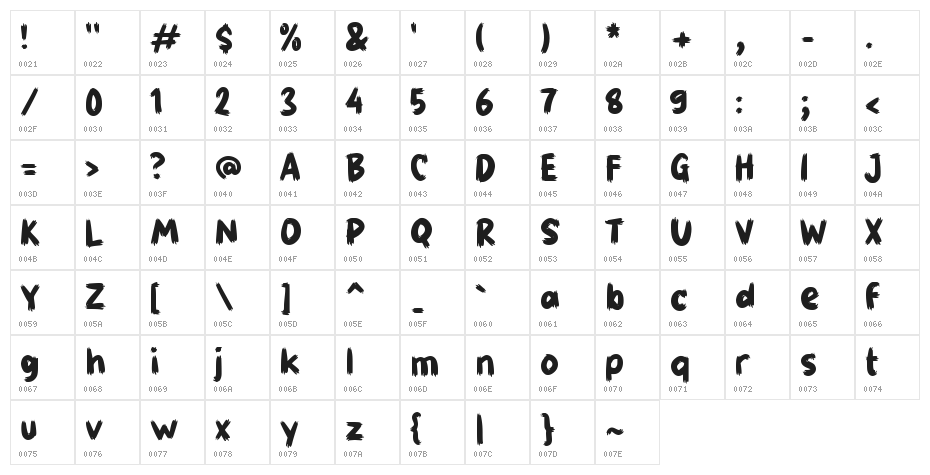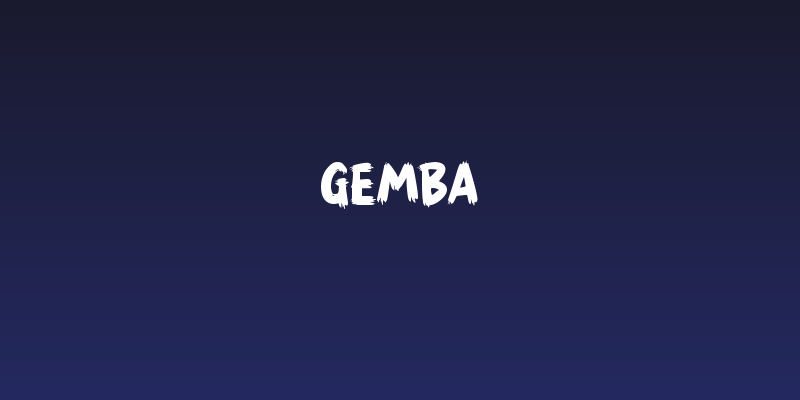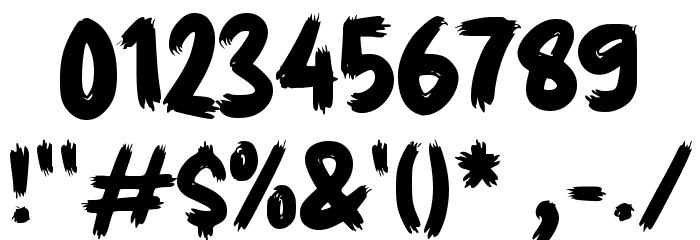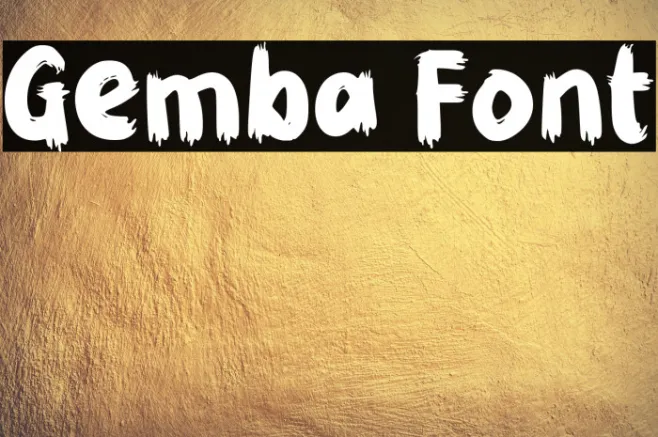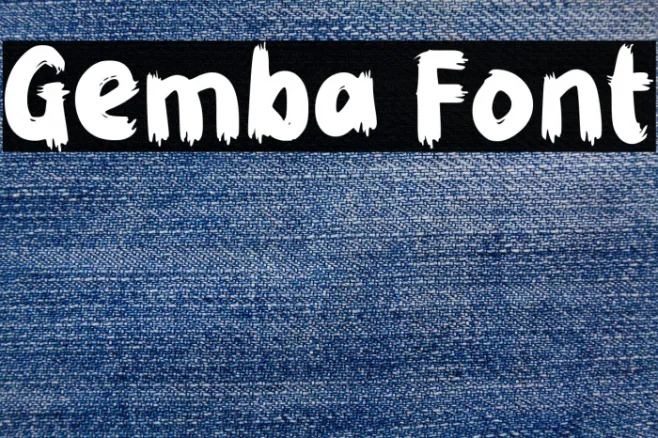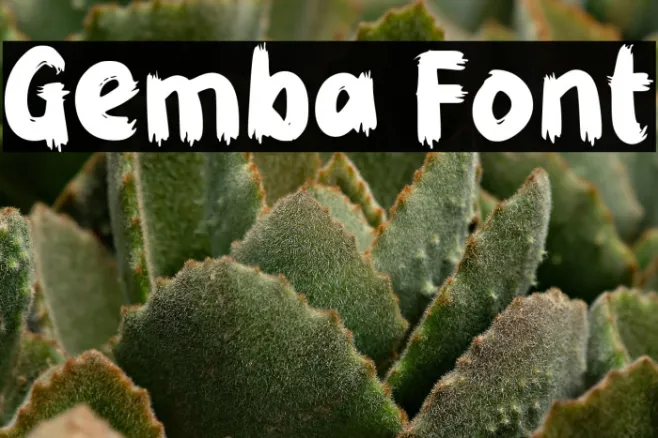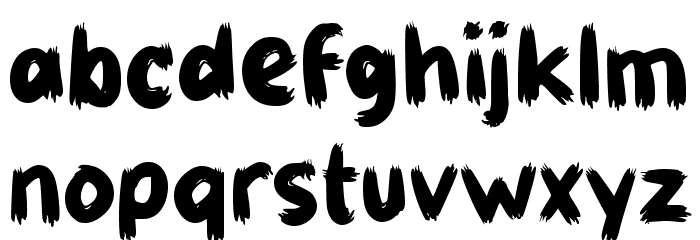
Gemba Font
Gemba Description
This font exudes a bold and energetic style, characterized by its brush-like strokes and dynamic appearance. The letters have a hand-painted feel, with irregular edges and varying thickness that give it a lively and spontaneous look. The uppercase and lowercase letters maintain a consistent style, while the numerals and special characters complement the overall aesthetic. This font is perfect for projects that require a touch of creativity and flair, making it ideal for artistic and expressive designs.
| Proposed Projects | Ideal for posters, album covers, artistic branding, and creative advertising. |